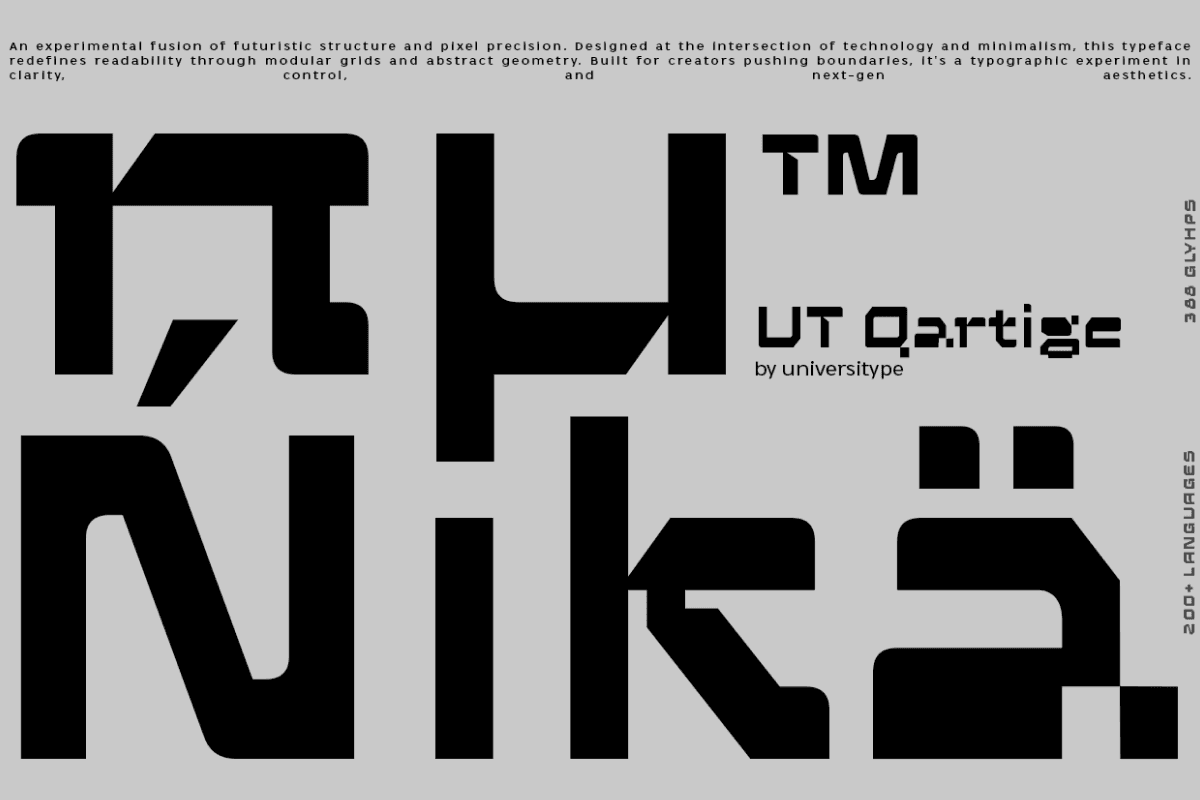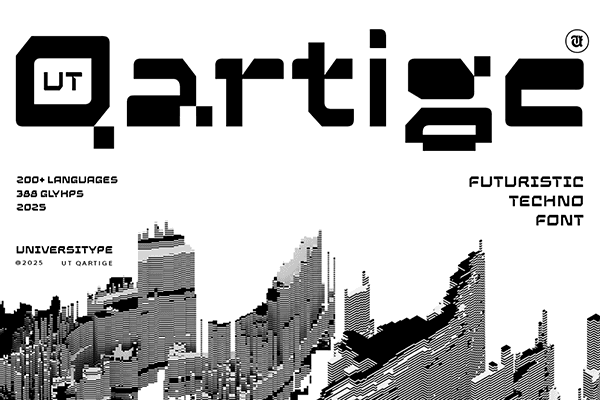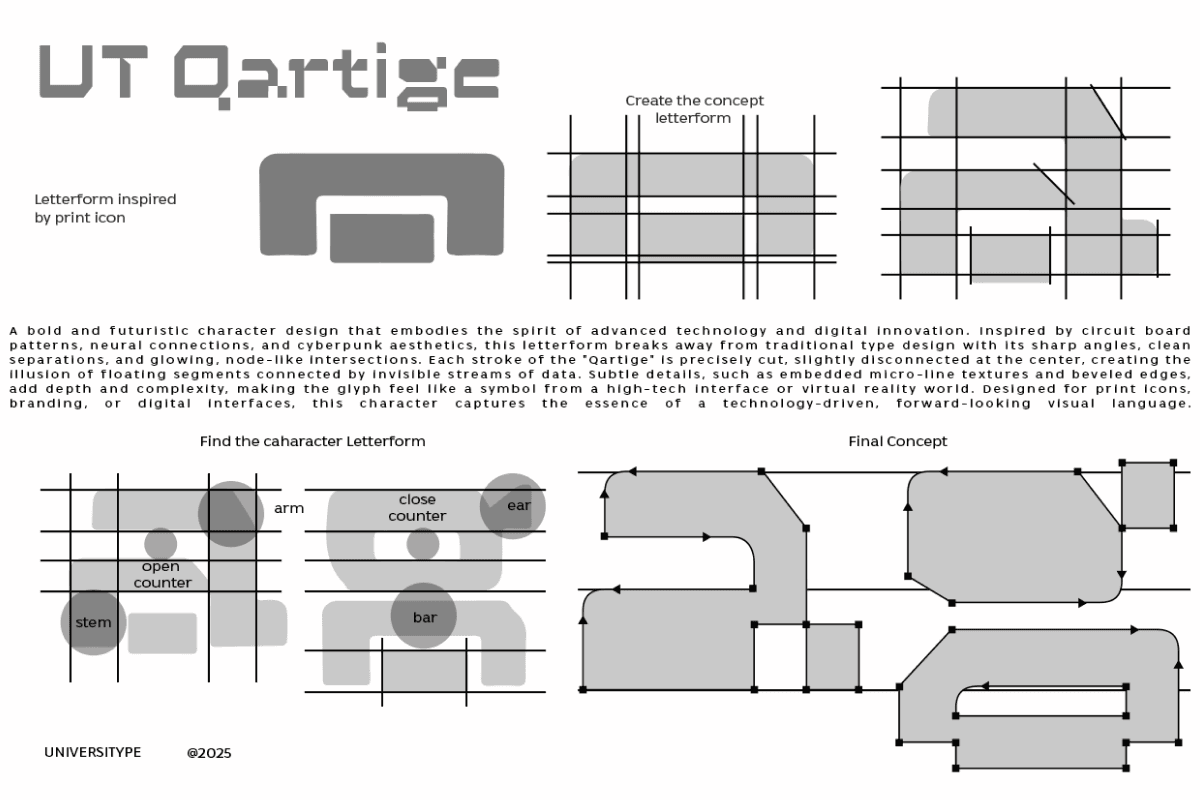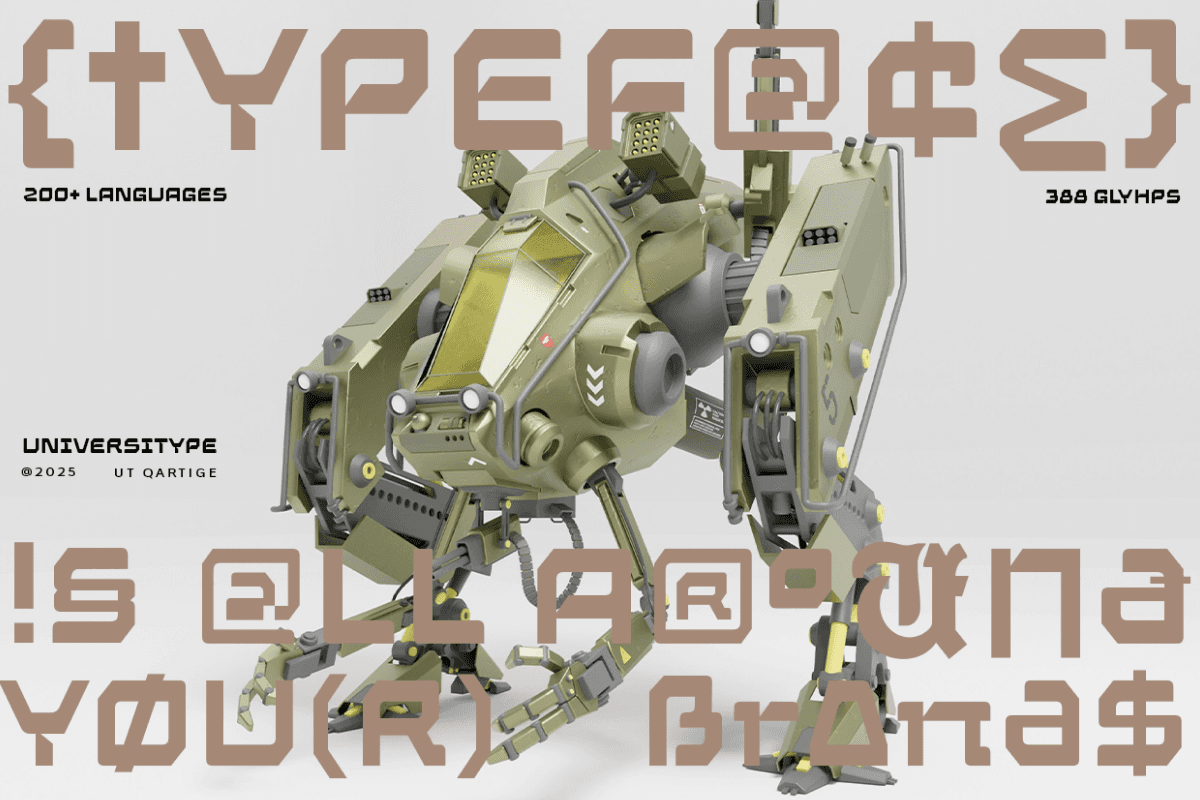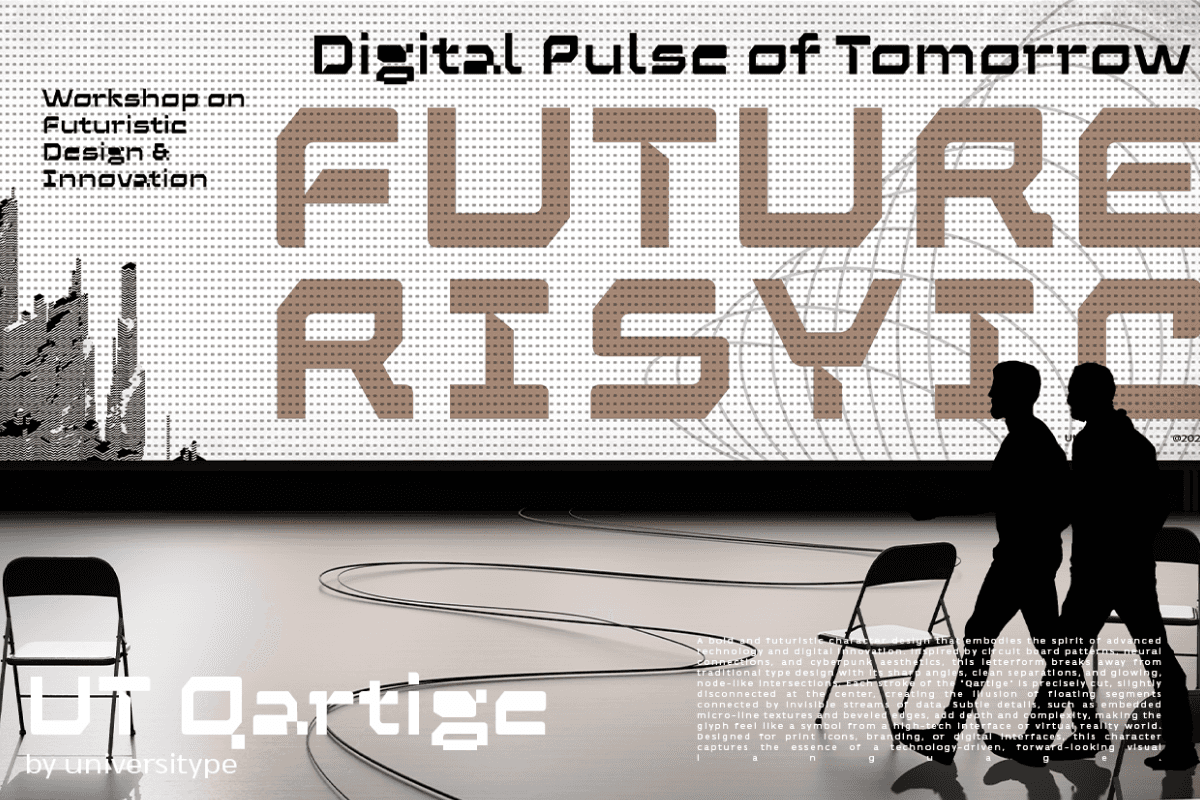
UT Qartige – Display Font is a techno-futuristic typeface born from the fusion of machine precision and digital rebellion. With its angular cuts, micro-line illusions, and bold, cyberpunk edge, this font feels like it just stepped out of a high-tech lab or a VR command center. Every letterform is designed to look like a data stream in motion—clean, coded, and full of character. It’s unapologetically modern, slightly disjointed for that “floating element” effect, and unmistakably built for a digital-first world.
Graphic designers, tech startups, sci-fi lovers, game developers, UX/UI designers, and anyone craving a futuristic font that instantly commands attention without trying too hard.